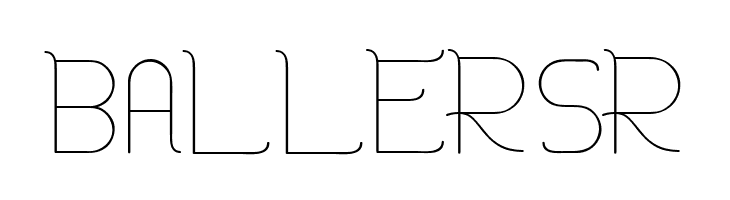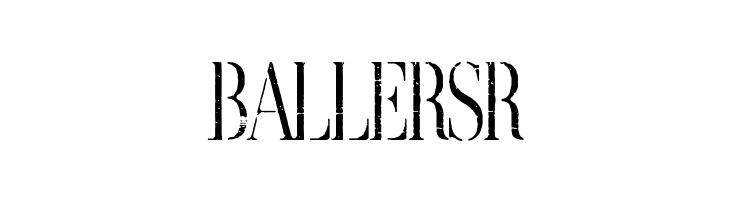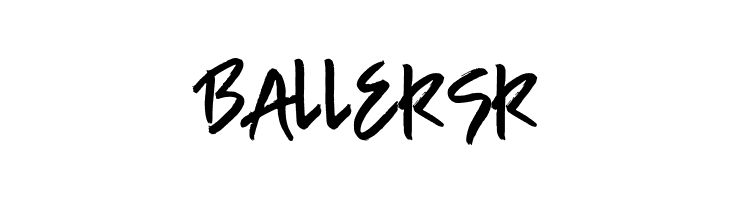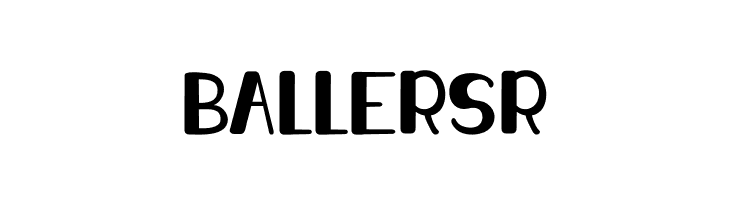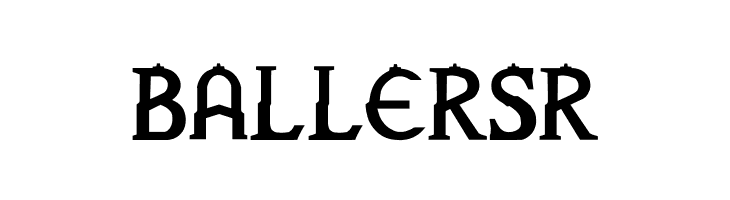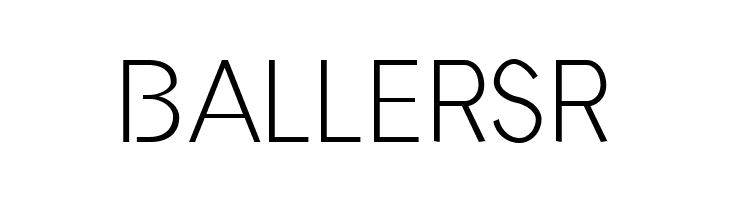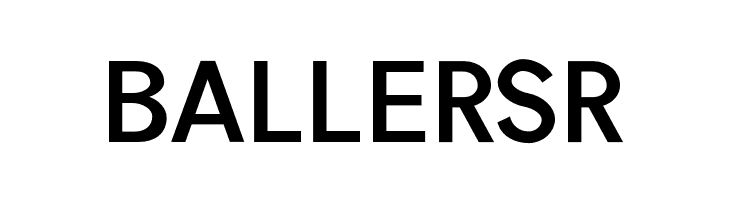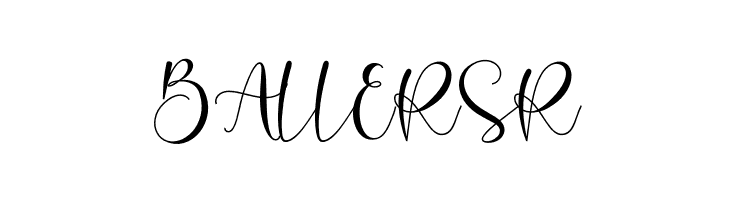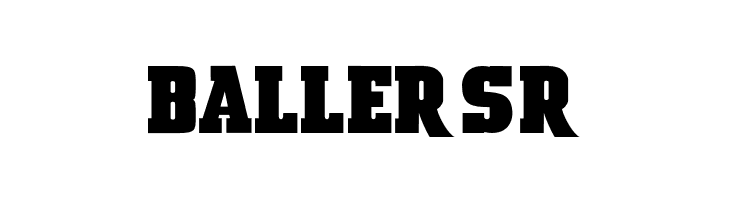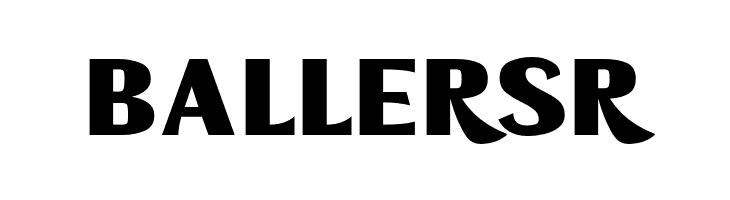
A bold, modern sans-serif font with clean lines and strong legibility.
A clean, modern sans-serif font with uniform stroke width and excellent readability.
A bold, modern sans-serif font with a clean and geometric design.
A modern, geometric sans-serif font with clean lines and balanced spacing.
A playful, bold font with rounded edges and a modern, approachable style.
A distressed, grungy font with uneven edges and a textured look.
A distressed, grungy font with a hand-painted, rugged appearance.
A distinctive serif font with angular serifs and a blend of traditional and modern elements.
A bold, geometric font with a modern, industrial feel.
A bold, futuristic font with intricate, mechanical detailing.
A bold, futuristic font with geometric shapes and tech-inspired detailing.
A modern, rounded font with sleek, flowing lines and a sophisticated appearance.
A distressed, vintage-style font with a stencil-like appearance and sharp serifs.
A bold, dynamic font with sharp, angular strokes and a hand-drawn feel.
A bold, dynamic font with sharp, angular strokes and a rebellious, graffiti-like style.
A playful, dotted outline font with bold, rounded characters.
A bold, modern font with thick strokes and a slightly condensed style.
A bold, geometric typeface with rounded edges and high legibility.
An elegant, flowing script font with graceful curves and calligraphic flair.
A bold, blocky font with strong, impactful characters.
A bold, playful handwritten font with thick strokes and a casual style.
A bold, expressive handwritten font with brush-like strokes.
A bold, blocky font with strong, impactful characters.
A lively handwritten script with a casual, cursive style.
A bold, expressive brush-style font with a dynamic, handwritten flair.